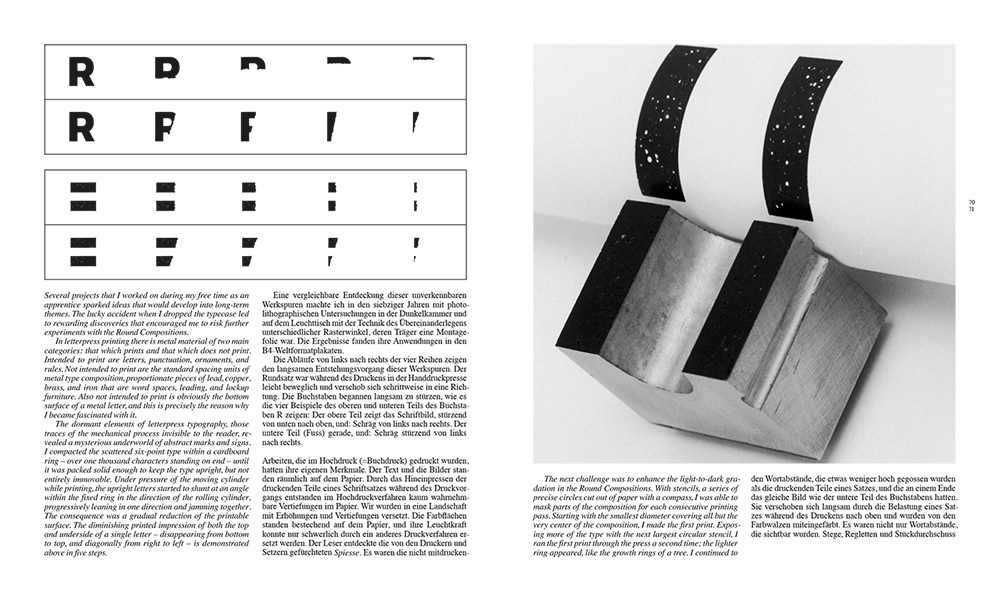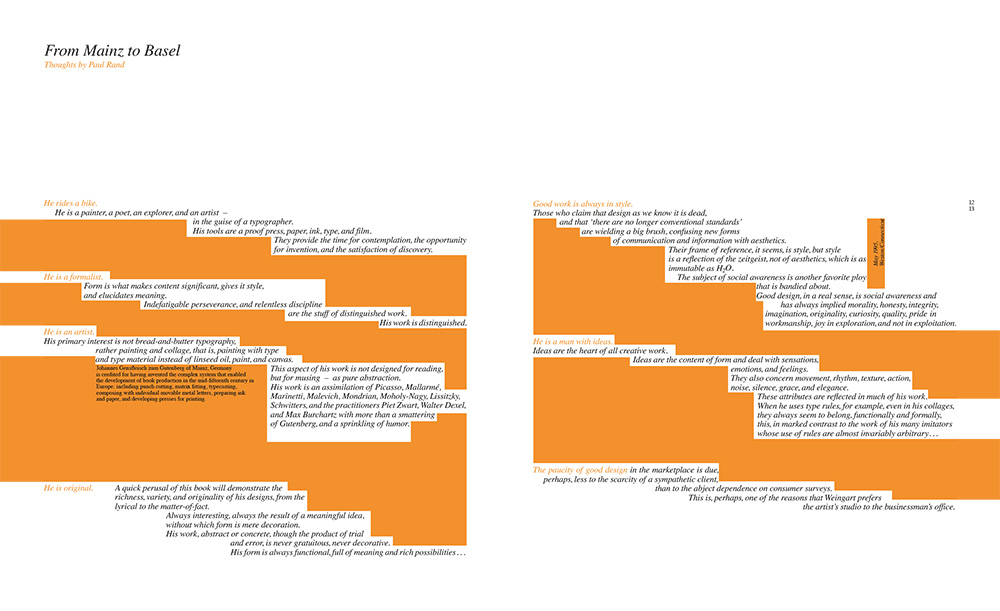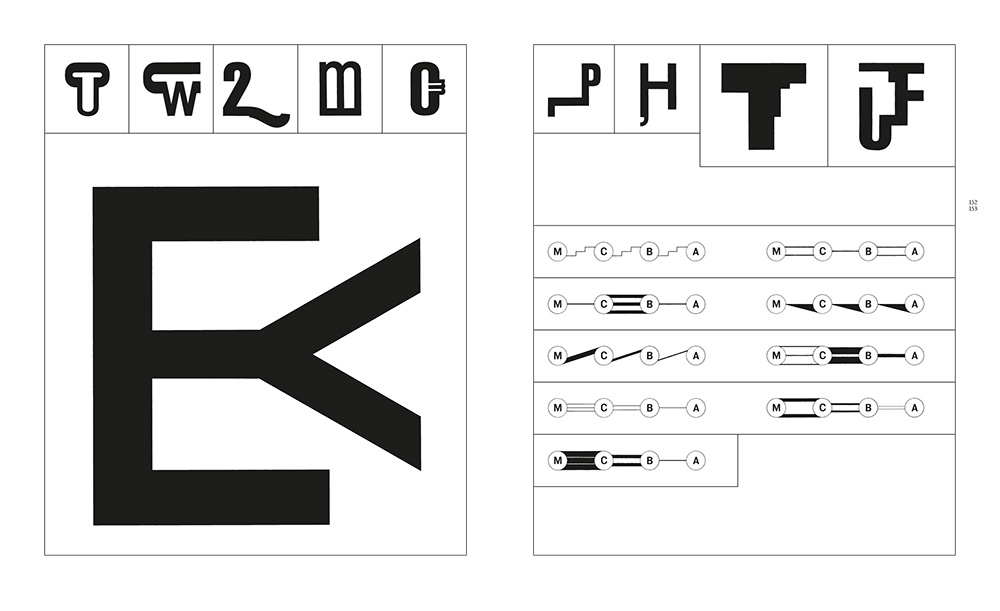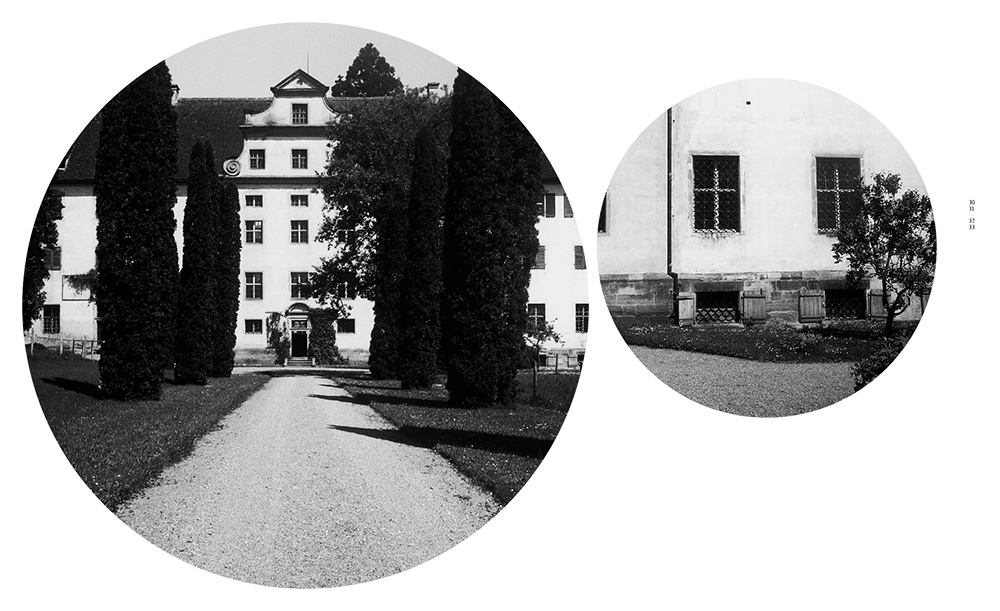
Typography—My Way to Typography / Wege zur Typographie
Since the 1970s, Wolfgang Weingart has exerted a decisive influence on the international development of typography. He instilled creativity and a desire for experimentation into the ossified Swiss typographical industry and reflected this renewal in his own work. Countless designers have been inspired by Weingart's teaching at the Basel School of Design and by his lectures.
In Typography, Weingart gives an unusual and frank narrative of his early life and development as a designer. This long-awaited reprint of Weingart's opus magnum gives a comprehensive survey of 40 years of his work.